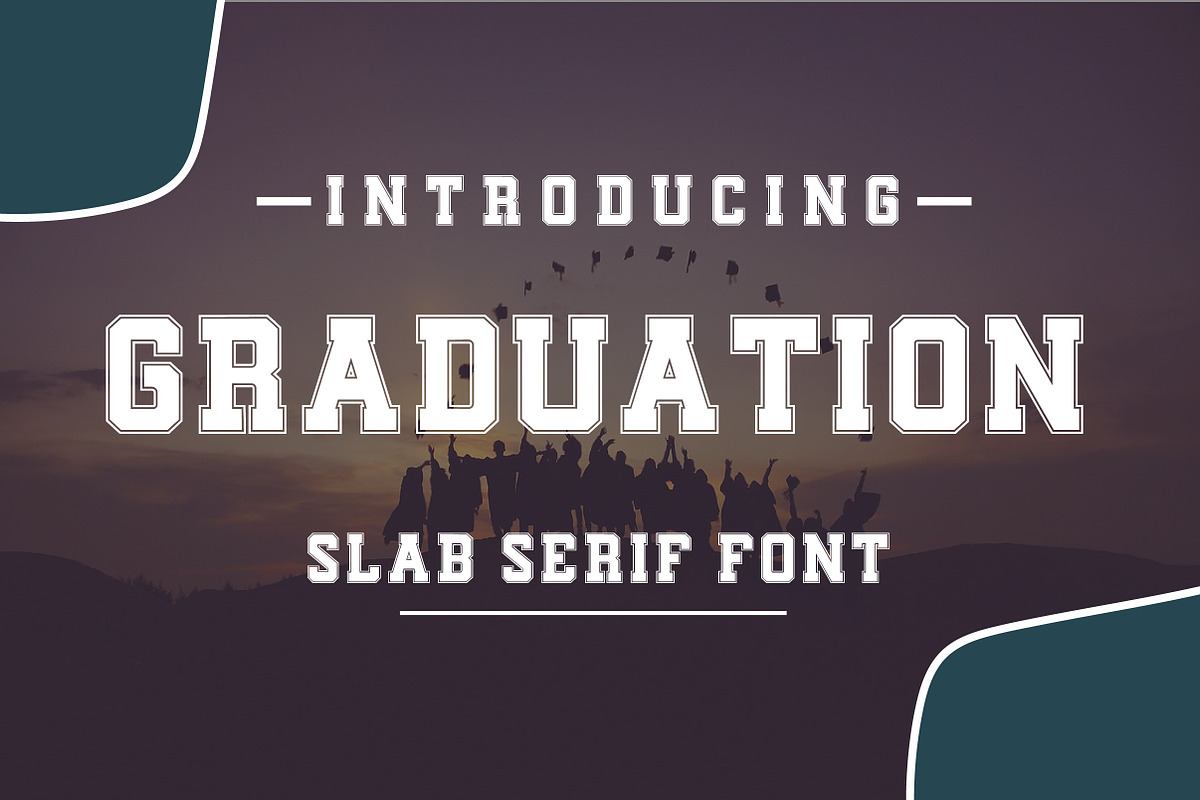
Please note, you must purchase this font for commercial use. However, you can easily download Graduation Font, Sports Free Download for personal use and testing purposes. Graduation Font, Sports is a bold and dynamic typeface perfect for projects related to sports events, educational achievements, team branding, and more. Featuring strong, clean lines and a sporty aesthetic, this font captures the energy and excitement of graduation ceremonies and athletic endeavors. Whether you're designing posters, logos, banners, or social media graphics for sports events or graduation celebrations, Graduation Font, Sports Free Download will add an impactful, professional touch to your design. Download Graduation Font, Sports Free Download today and explore its potential before opting for a commercial license.